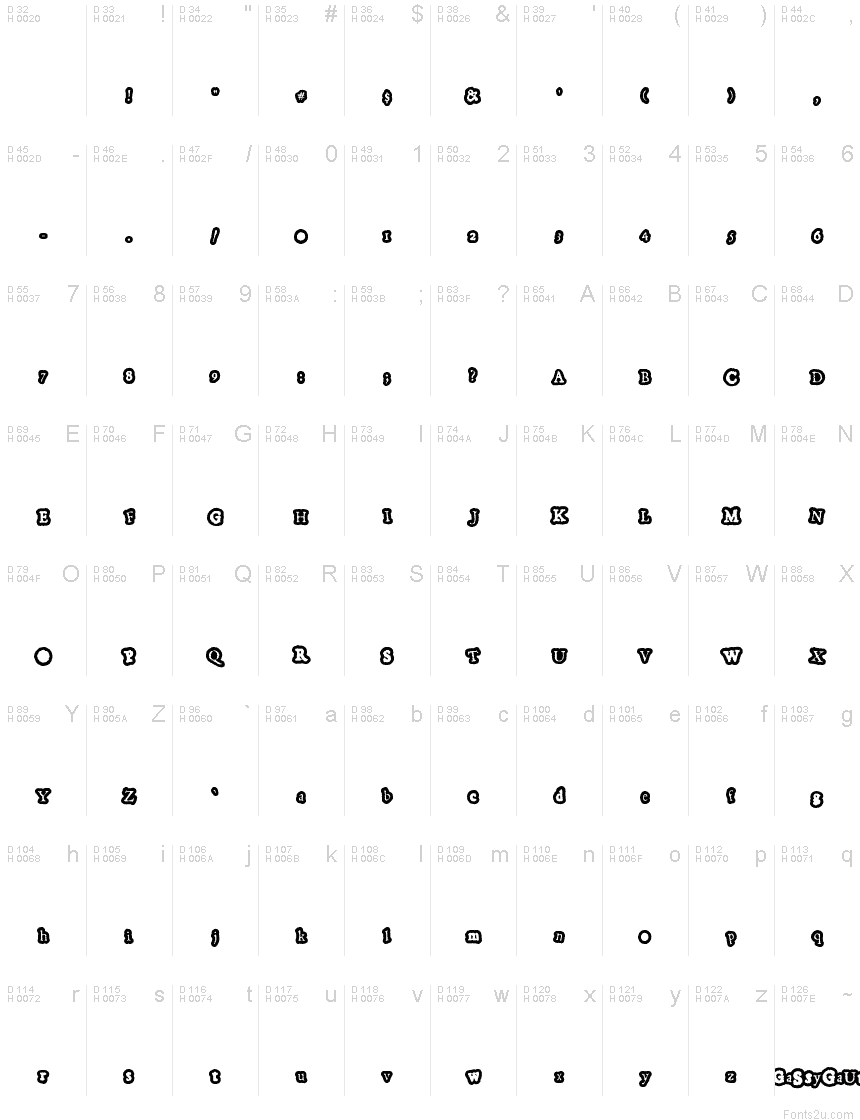
GassyGaut
GassyGaut font by J.F.Y. Daniel Gauthier is a free eroded display font that looks like chunky ink bubbles with letters punched out of them. Each glyph sits in a blobby, irregular cloud, with fuzzy edges that feel splattered and a little gross in the best way-somewhere between slime, smoke, and chewed bubble gum. It’s loud, messy, and instantly grabs the eye, especially in big, in-your-face titles.
Using GassyGaut, you can give gig posters, Halloween flyers, horror-comedy titles, kids’ “gross-out” party invites, stickers, and YouTube thumbnails a wild, gooey personality. This free font works best when it’s huge and bold, with plenty of breathing room around the shapes. For supporting text, pair it with a simple, clean sans serif so the blobby letter clouds stay the star of the design.